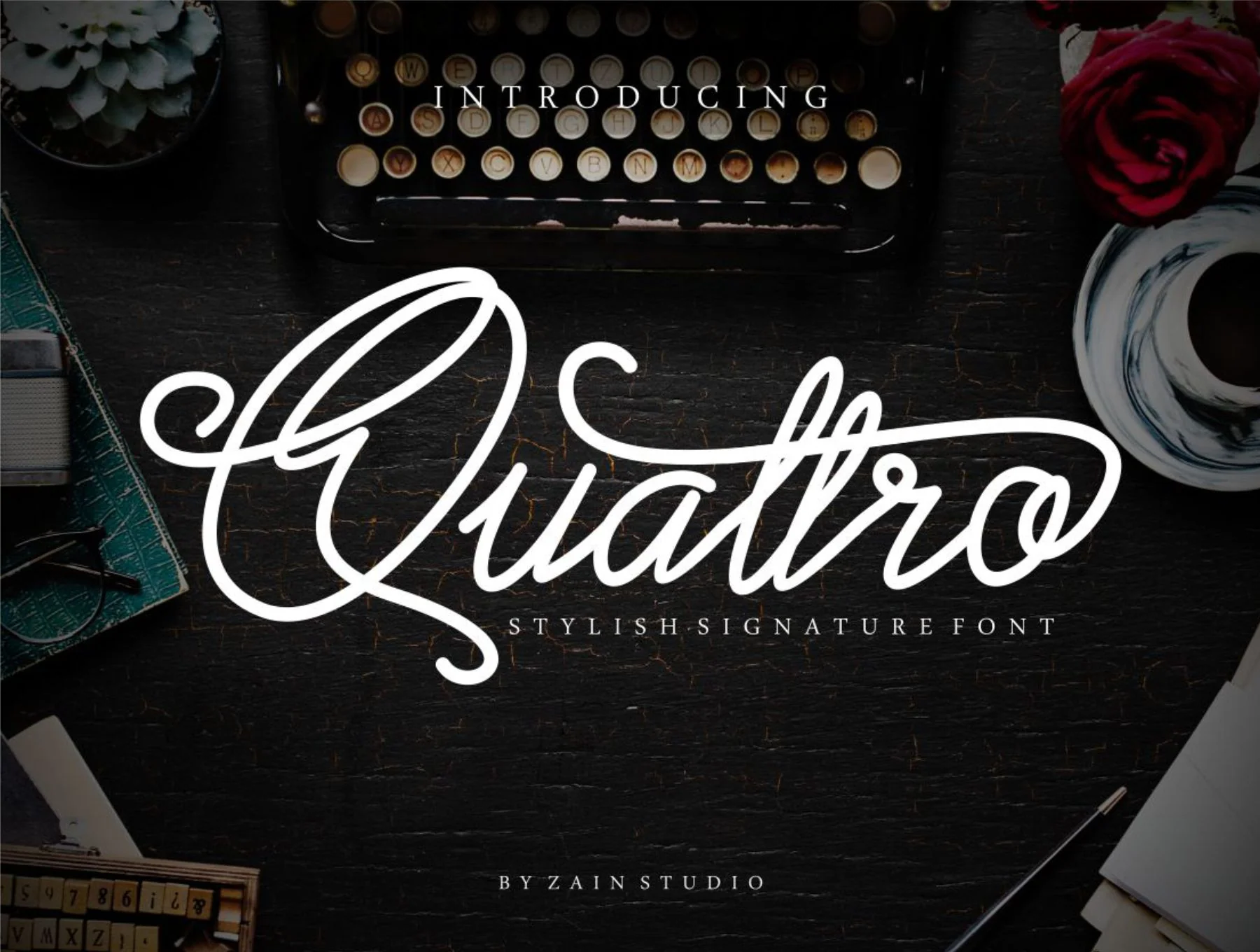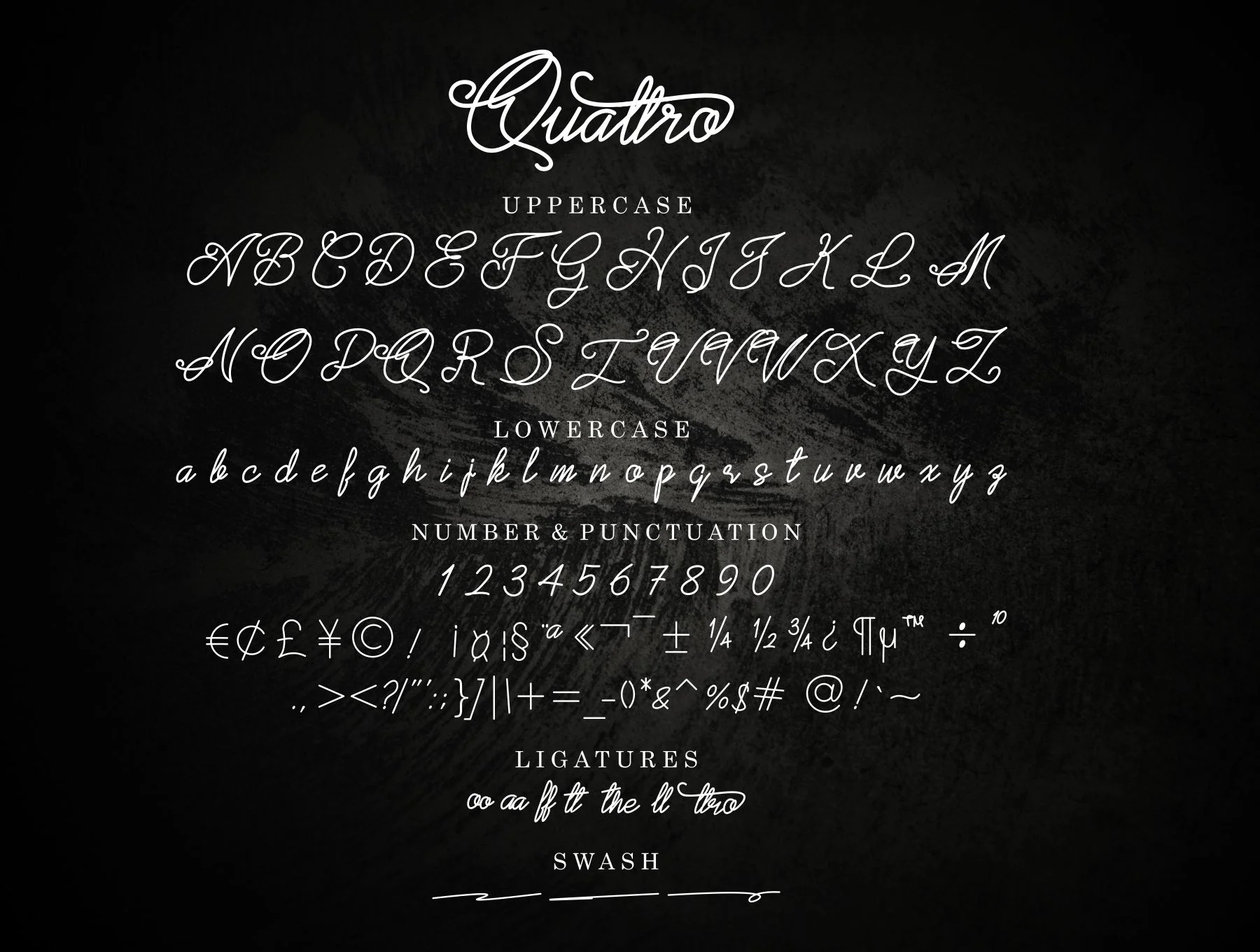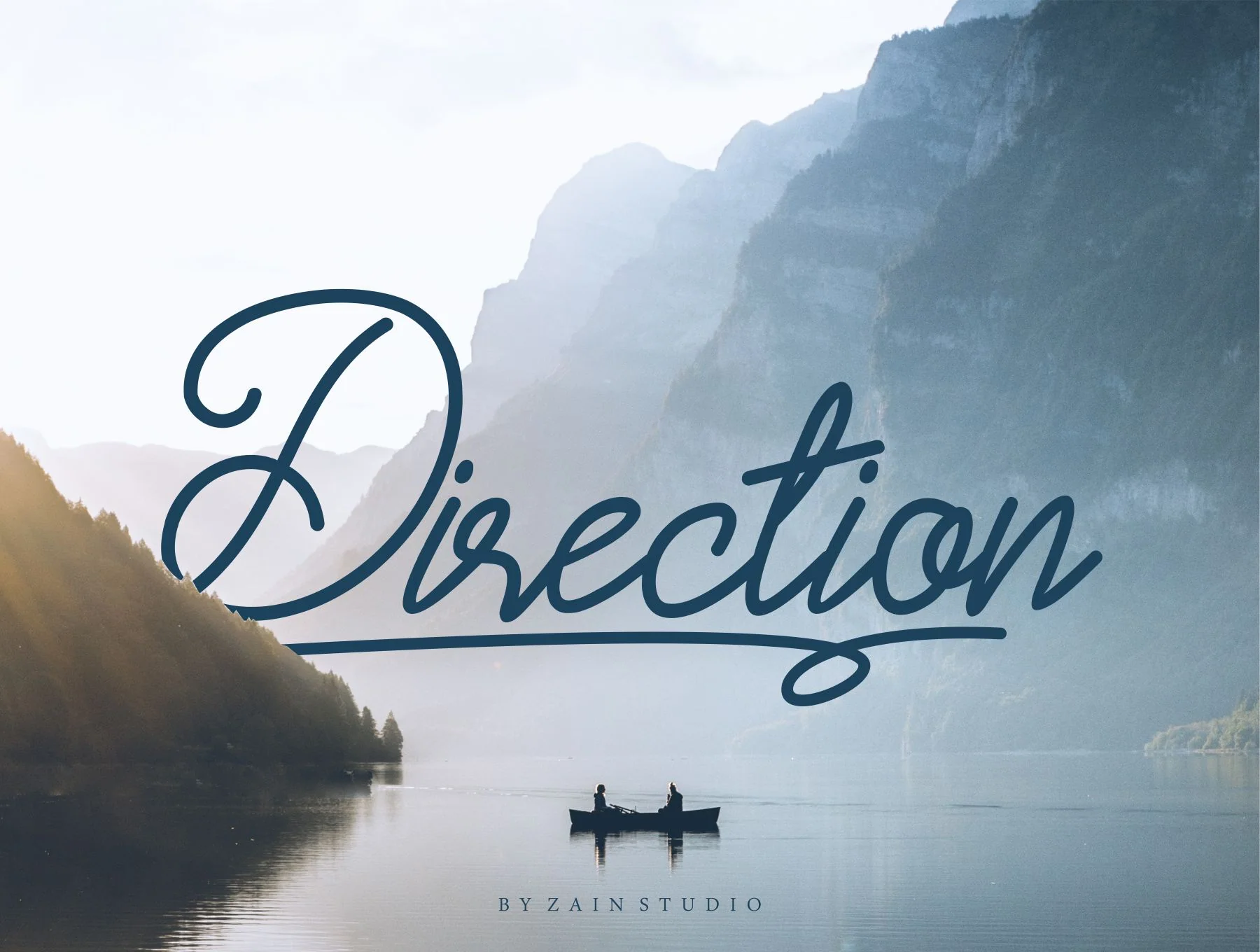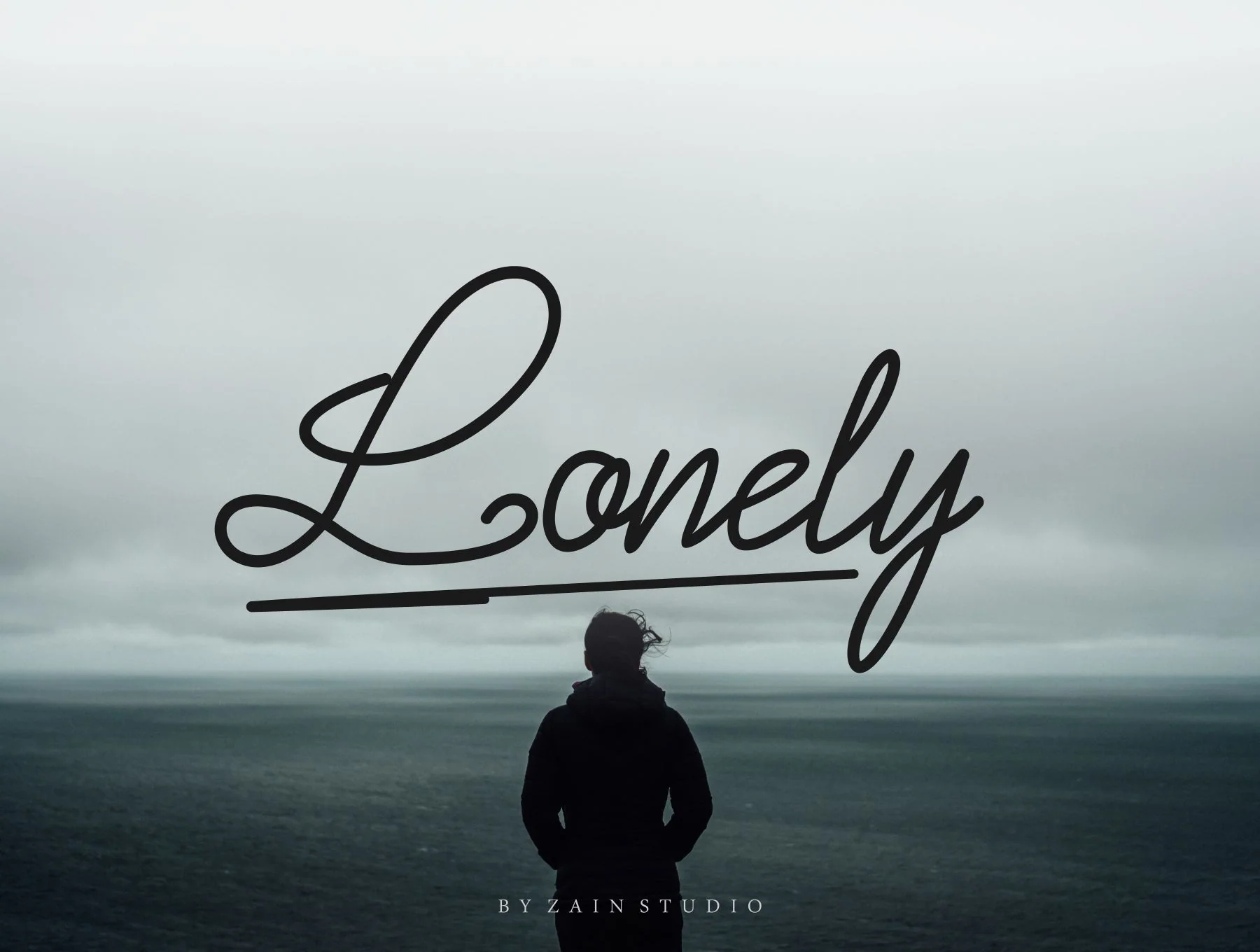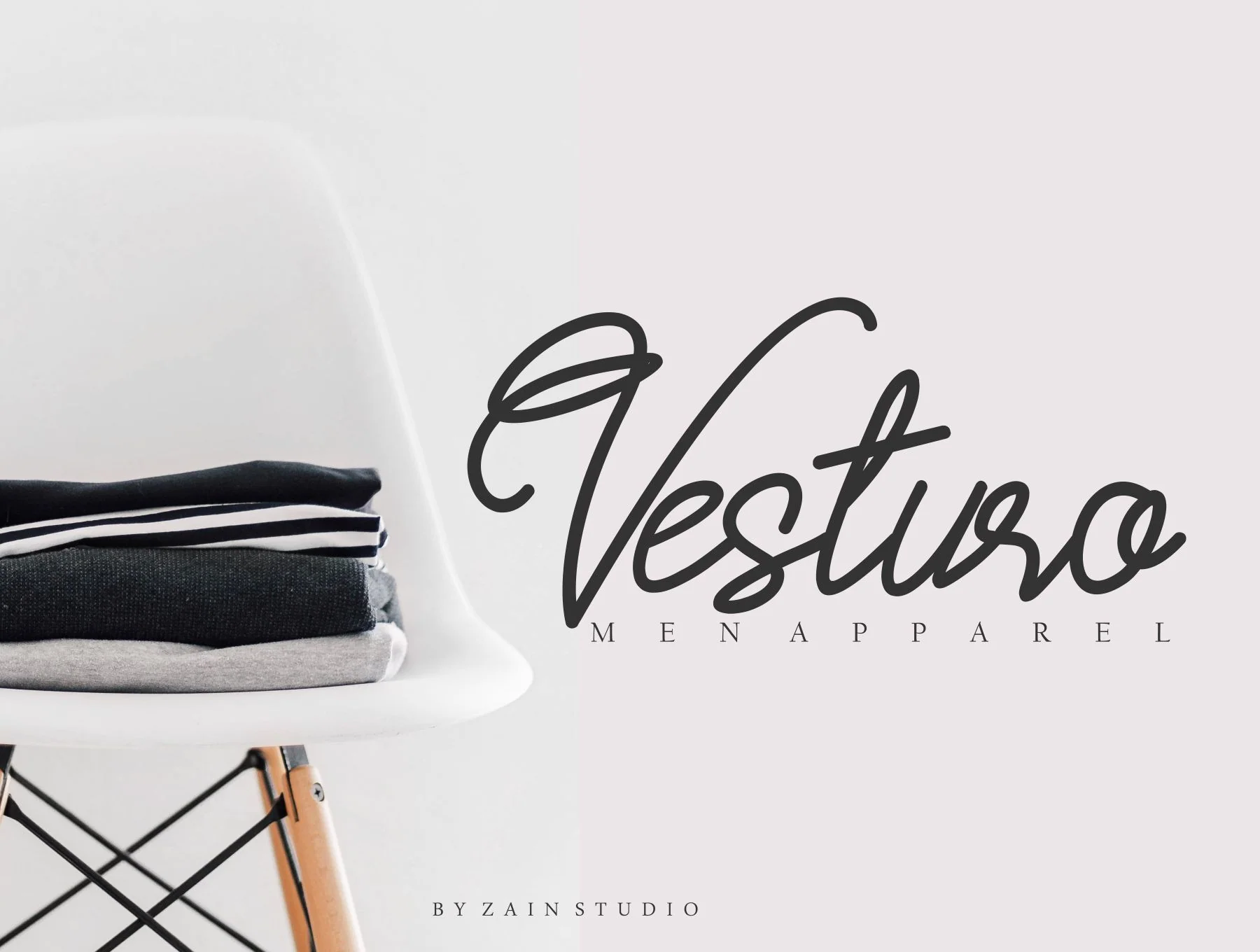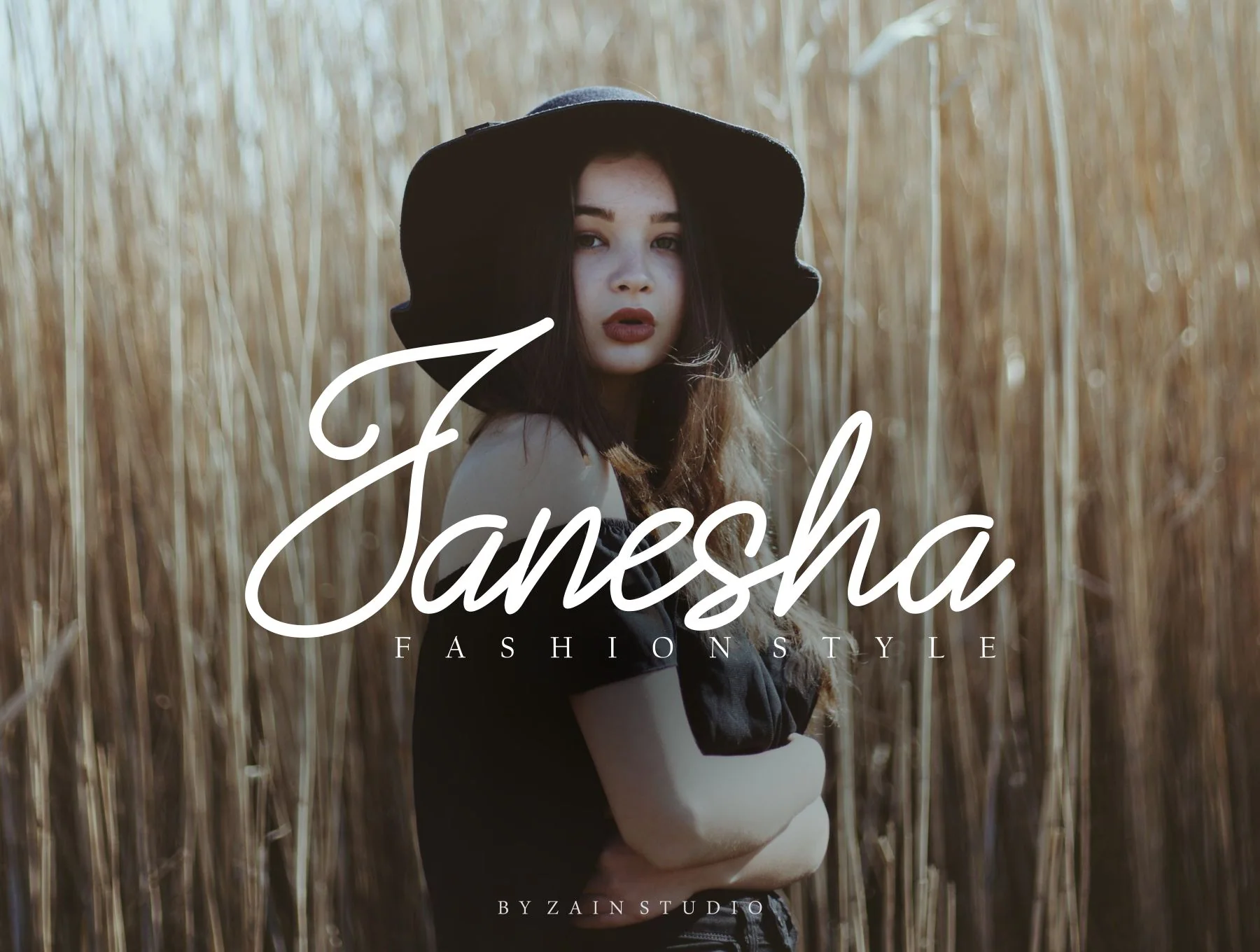
Quattro Script Font
Quattro is a chic handwritten script font with an elegant touch, bringing personal charm to every design.
Meet Quattro, a handwritten typeface with warm, personal character. Its signature-inspired look suits branding, homeware designs, boutique or hotel names, menswear labels, product packaging, and elegant text overlays on background images.